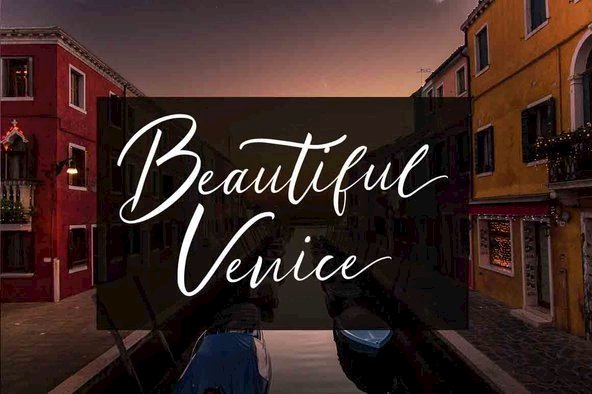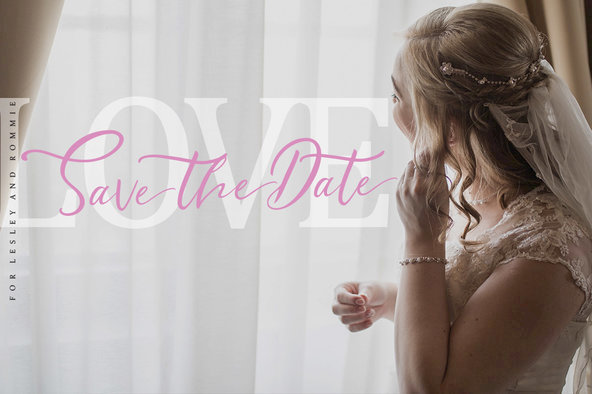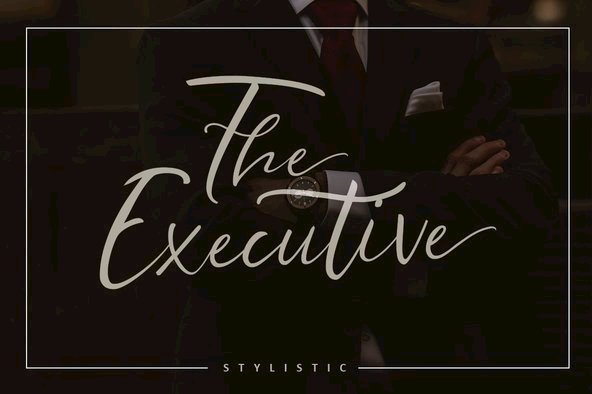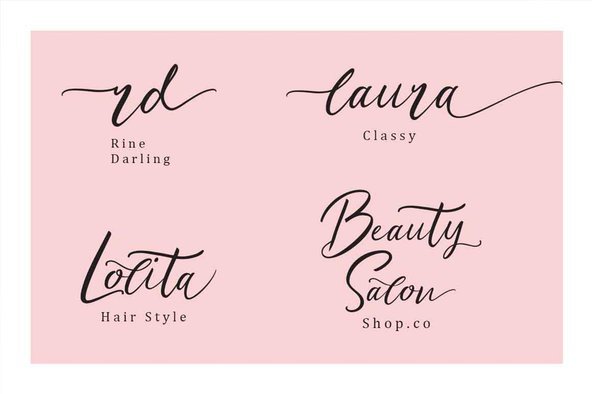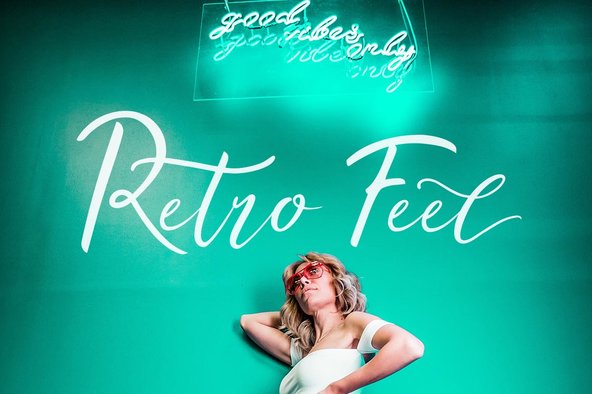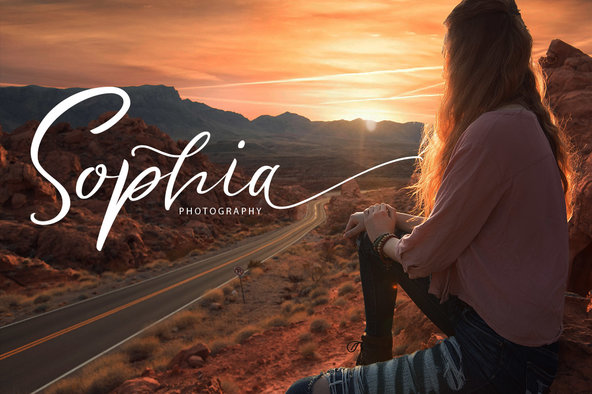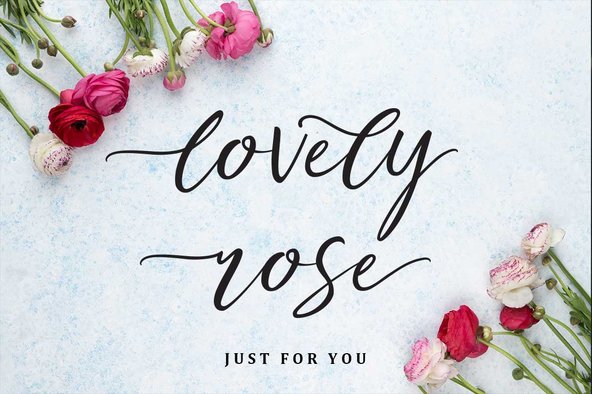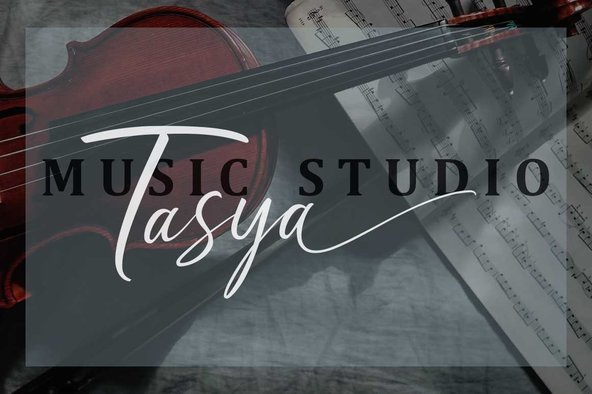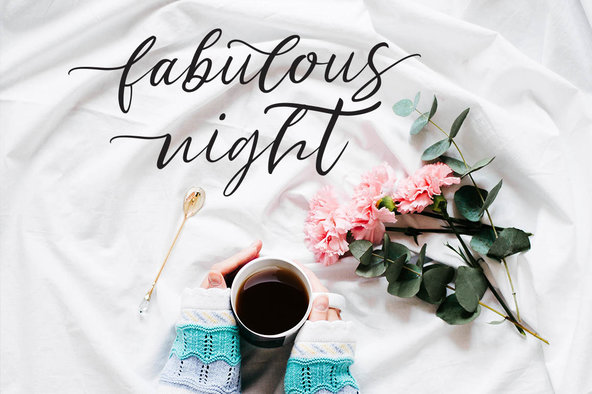
Ralyne Font
Ralyne is a meticulously crafted calligraphy font that exudes elegance through handwritten, sophisticated flows. This font achieves harmonious typography, making it suitable for a wide range of design projects like logos, branding, wedding invitations, social media visuals, and advertisements. Ralyne’s versatility is enhanced through various tools like Character Map for Windows and Font Book for Mac, providing alternative ways to access its extensive stylistic options.Ralyne: A Sophisticated Calligraphy Font